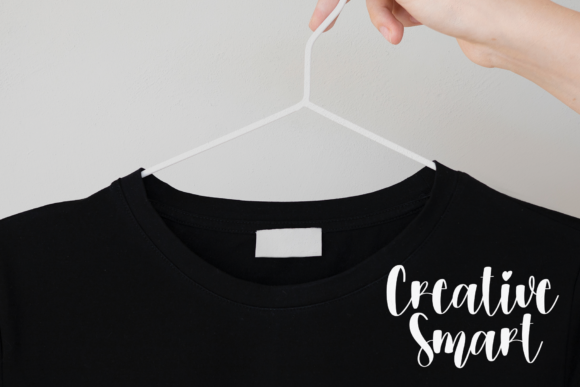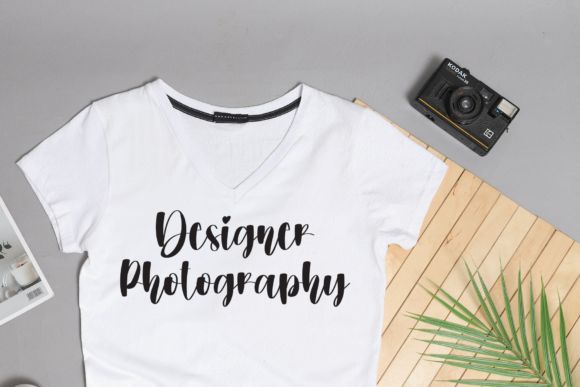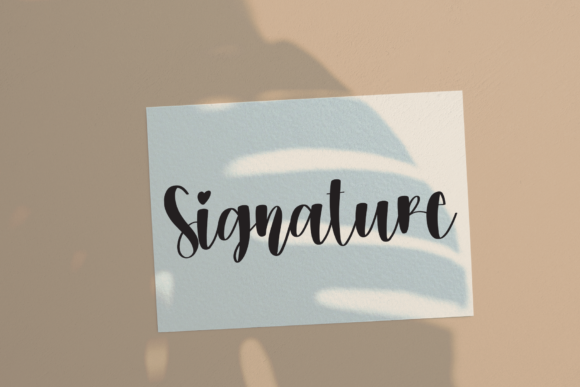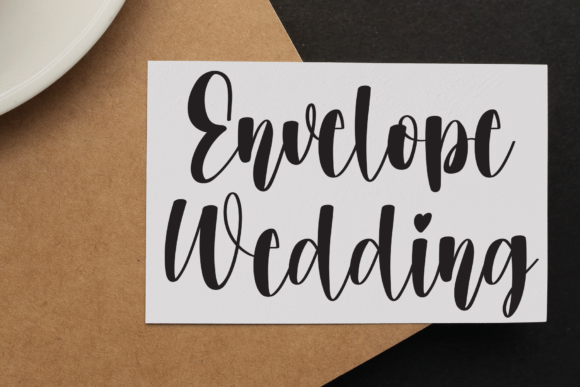
Introducing Forever Morning Font: Elevate Your Designs with Elegance
Are you on the hunt for a font that exudes sophistication, elegance, and a touch of modern flair? Look no further than the Forever Morning Font. This stunning handwritten font is meticulously crafted to capture the essence of classy calligraphy while infusing it with a contemporary twist. In this article, we’ll dive into the world of Forever Morning, exploring its features, benefits, and uses, and why it’s poised to become your new favorite font.
The Essence of Forever Morning Font
Forever Morning Font is a masterclass in elegant typography. Its design seamlessly blends traditional calligraphic elements with a fresh, modern aesthetic. The result is a chic and sophisticated font that instantly elevates any project it’s used in. Whether you’re working on a branding campaign, a wedding invitation, or a packaging design, Forever Morning Font is sure to make a lasting impression.
Key Features of Forever Morning Font
- Handwritten Elegance: Forever Morning boasts a beautiful, handwritten style that’s both personal and refined.
- Classy Calligraphic Influences: The font’s design is deeply rooted in traditional calligraphy, giving it an air of sophistication and luxury.
- Contemporary Twist: What sets Forever Morning apart is its modern edge, making it perfect for designers looking for a font that’s both timeless and trendy.
- Versatility: This font can be used across a wide range of projects, from digital content to print materials, and is sure to adapt to any design style.
Why Designers and Crafters Love Forever Morning Font
So, what makes Forever Morning Font a favorite among designers and crafters? For starters, its unique blend of classic and contemporary styles makes it incredibly versatile. It’s perfect for:
- Branding and Logos: Create a lasting impression with a logo that exudes elegance and sophistication.
- Wedding and Event Invitations: Add a touch of romance and luxury to your invitations and stationery.
- Packaging Design: Stand out on store shelves with packaging that features a beautiful, high-end font.
- Digital Content: Elevate your blog posts, social media graphics, and website headers with a font that’s both stylish and readable.